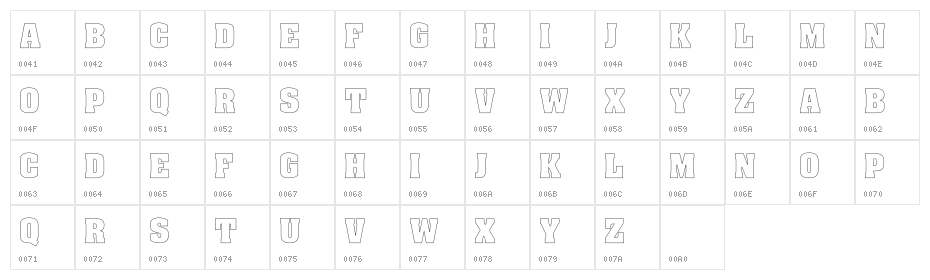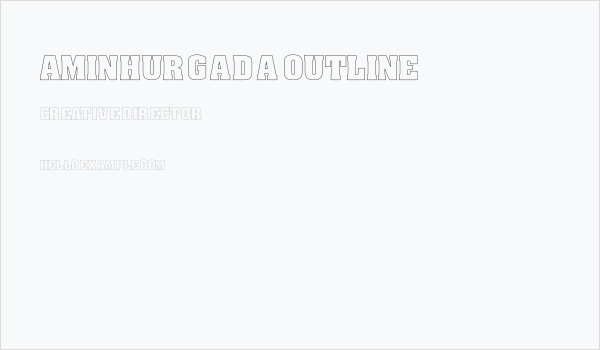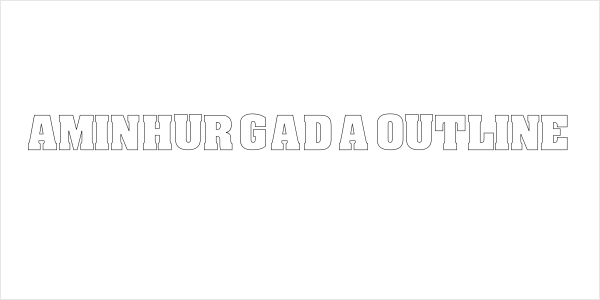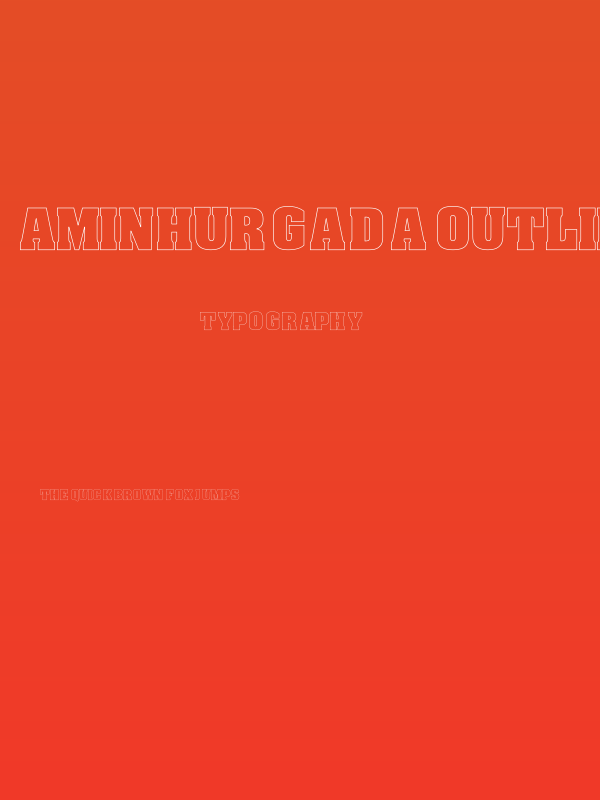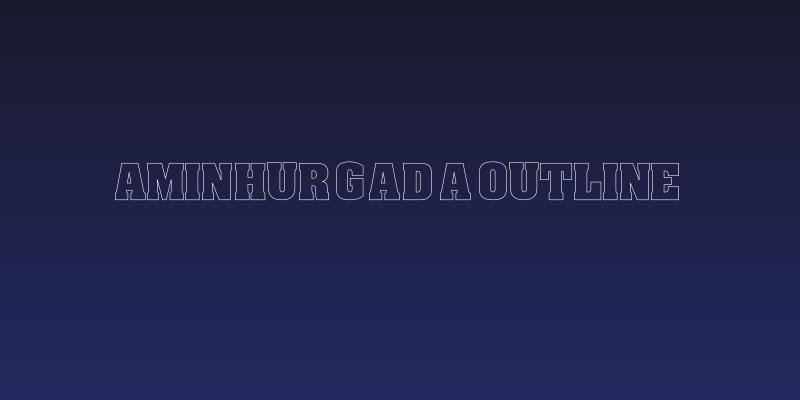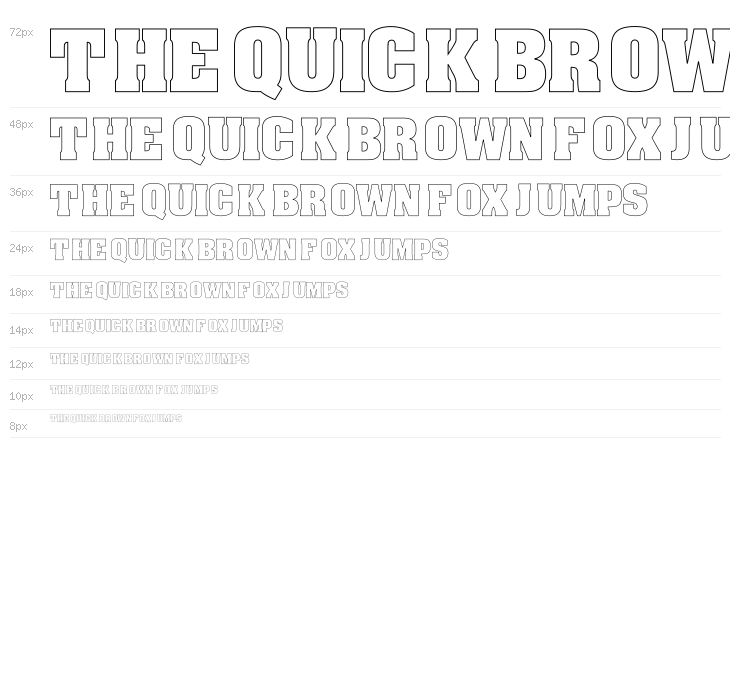
Amin_Hurgada Outline Font
Amin_Hurgada Outline Description
This font features a bold, outlined style with a strong presence. The uppercase letters are uniformly designed with a blocky, geometric structure that gives a sense of stability and strength. The outlines are consistent in thickness, providing a clear and defined look without any internal fill. This style is reminiscent of classic collegiate or varsity fonts, often used to convey a sense of tradition and authority. The characters are evenly spaced, ensuring readability and balance across different text lengths. The font's design is straightforward, making it versatile for various applications where a bold statement is needed.
| Proposed Projects | Ideal for sports team logos, event posters, and headlines where a strong, impactful presence is desired. |